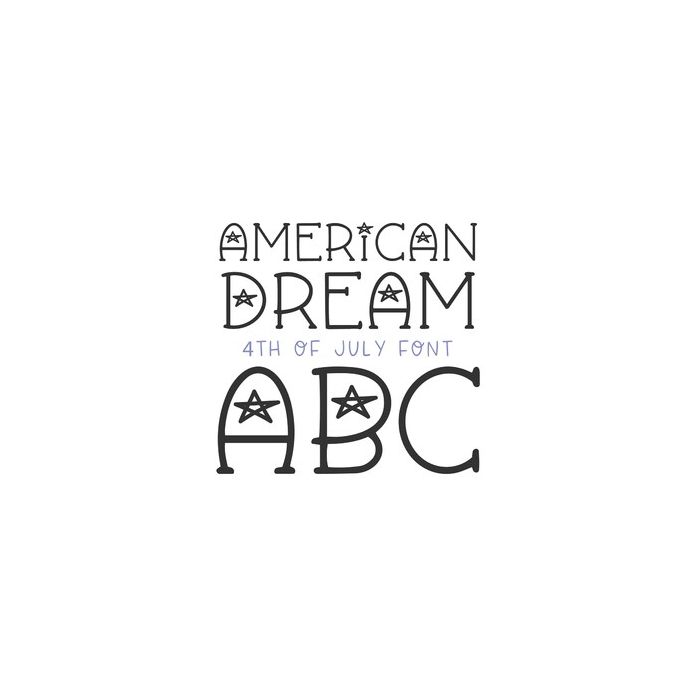
BFC American Dream Star 4th of July Font
American Dream is a festive 4th of July or birthday font with stars. Find the stars when using CAPS letters. Lowercase letters are plain.